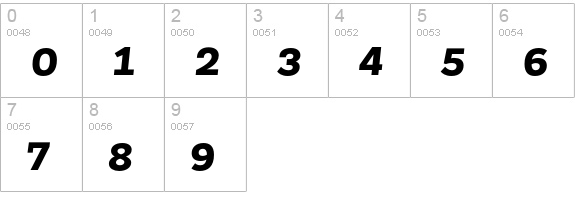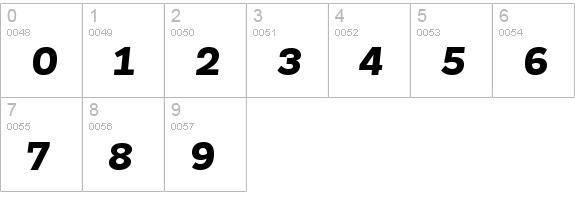
Newslab Black Italic Font Details
Newslab Black Italic is a maximum-weight, dramatic, italic variant in the Newslab typeface family \xE2\x80\x94 well suited to maximum-impact headlines, posters, and packaging.
Newslab Black Italic font is a bold and modern typeface that exudes sophistication and elegance. Its sleek italic design adds a touch of flair to any project, making it perfect for headlines, titles, and branding materials. The strong, yet refined look of this font commands attention and leaves a lasting impression. What's even better is that Newslab Black Italic font is available for free download at FontsMarket.com. This means you can easily access this stylish typeface without any cost, making it a valuable addition to your font collection. Whether you're working on a professional design project or simply looking to elevate your creative work, Newslab Black Italic font is a versatile and eye-catching choice that will surely make a statement.